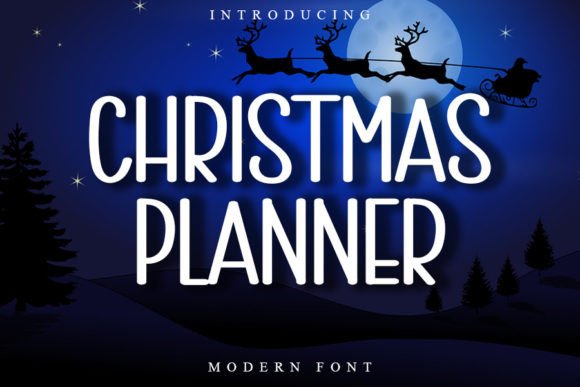
Embark on a lettering adventure with Christmas Planner, a handwritten font that exudes warmth and charm. Let your creativity flourish as you craft personalized greeting cards, invitations, and social media posts that come alive with a touch of festive magic.
Picture this: the excitement of Christmas morning, the crackling of the fireplace, and the aroma of freshly baked cookies filling the air. Capture these heartwarming moments with Christmas Planner, a font that speaks to the heart. Designed with meticulous care, each stroke and curve emulates the beauty of handwritten notes, adding a personal touch to your digital creations.
Unleash your inner artist and explore the boundless possibilities of Christmas Planner. Create enchanting holiday-themed logos that sparkle with cheer. Design eye-catching posters that invite friends and family to festive gatherings. Express your gratitude with heartfelt Christmas cards that convey the true spirit of the season.
But its allure extends far beyond the realm of Christmas. Christmas Planner effortlessly lends itself to a multitude of creative endeavors, from elegant wedding invitations to whimsical birthday cards. Its versatility knows no bounds, making it the perfect choice for bloggers, graphic designers, and anyone seeking a touch of handwritten charm in their digital creations.
So embrace the magic of Christmas Planner and let your imagination soar. It's the font that transforms ordinary words into heartfelt messages, capturing the essence of love, joy, and the holiday spirit. Download Christmas Planner today and unlock a world of creative possibilities.